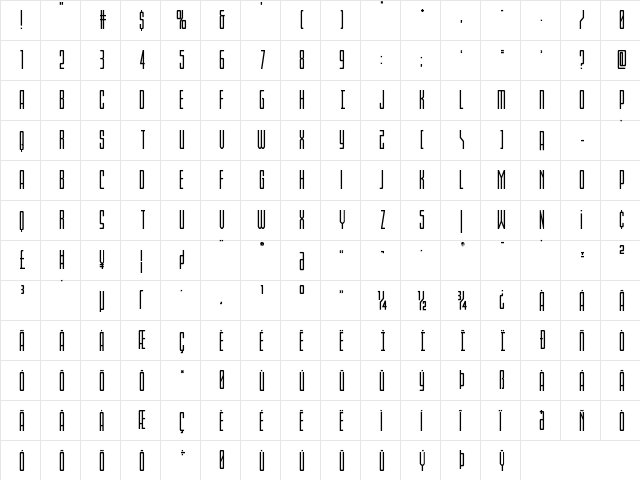
Blue Cobra Title Regular
Design Context for Blue Cobra Title Typeface
Blue Cobra Title takes a measured approach to typography — its balanced proportions and neutral character make it a reliable workhorse for both digital and print work.